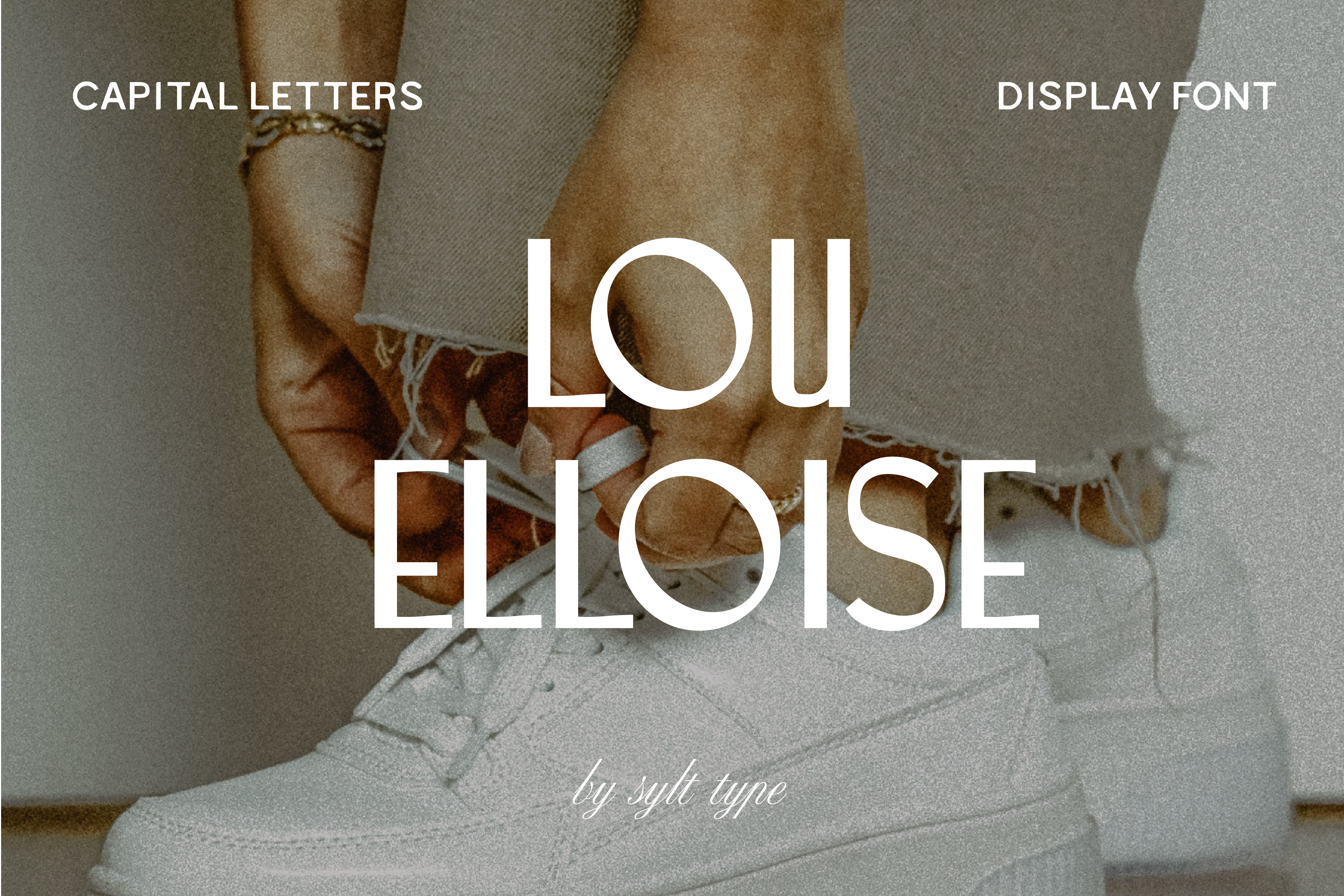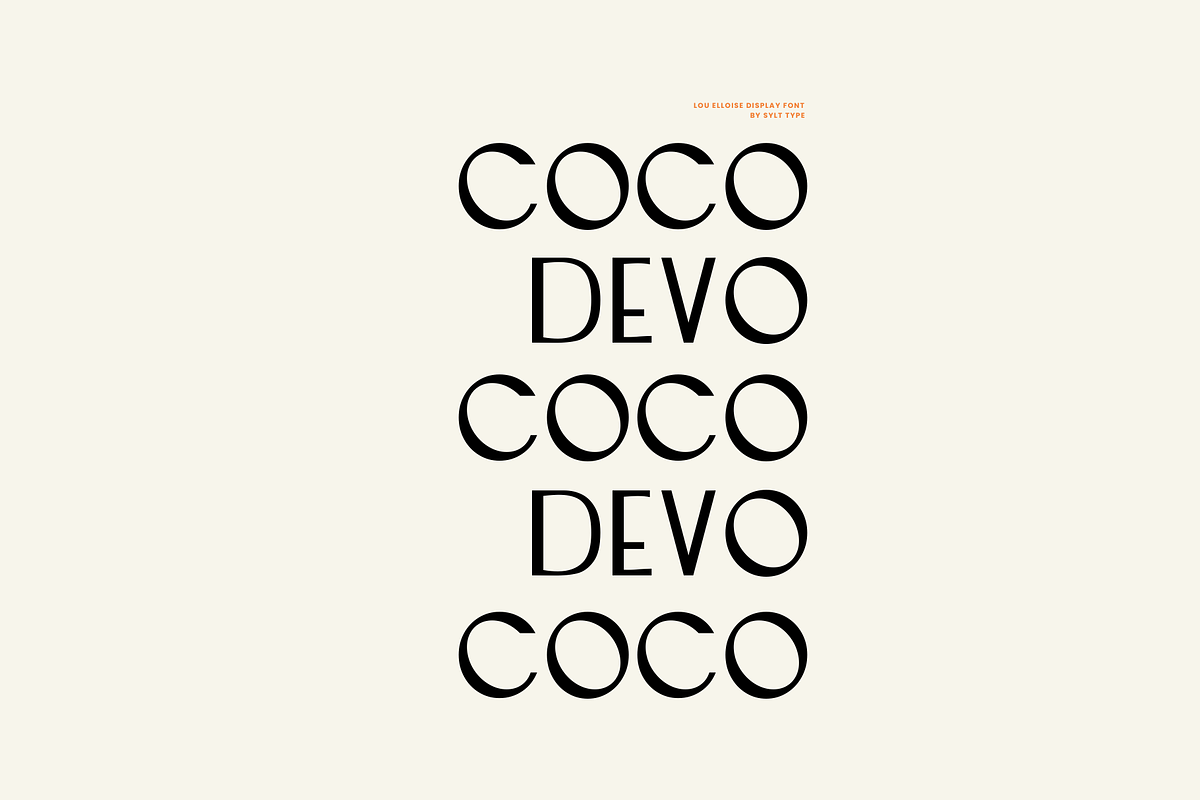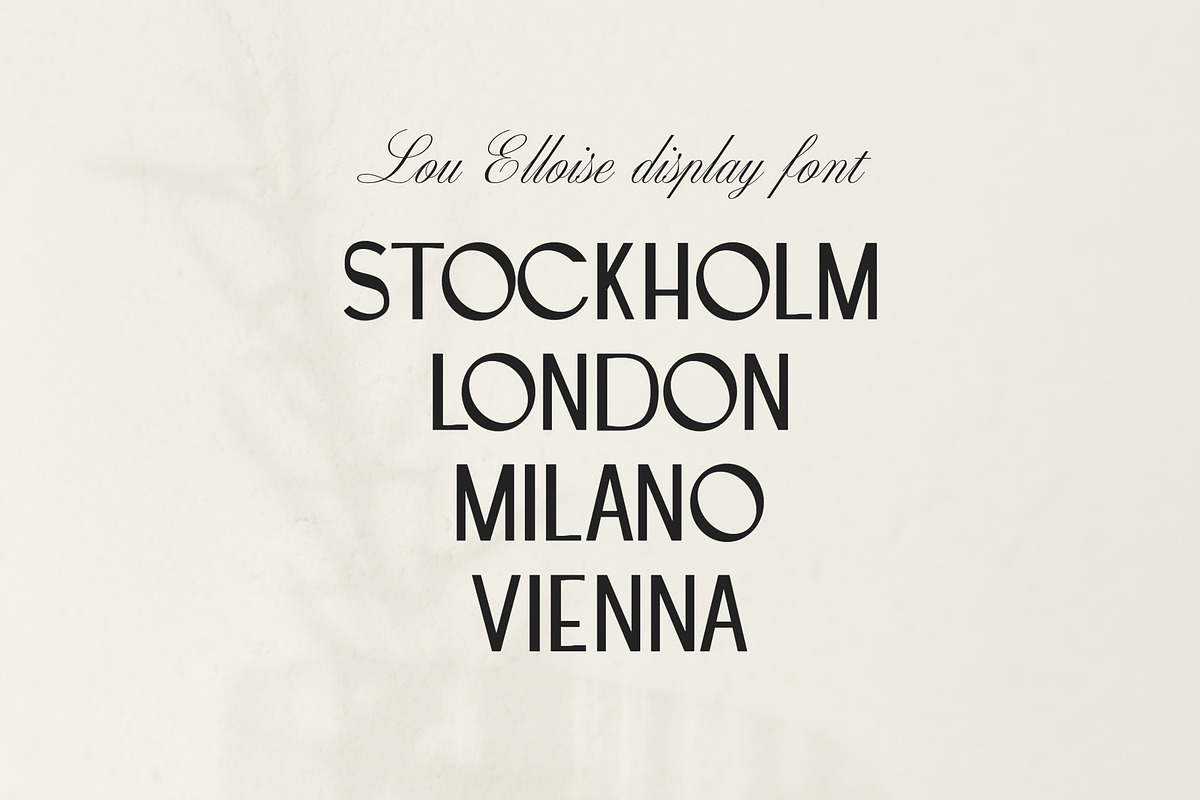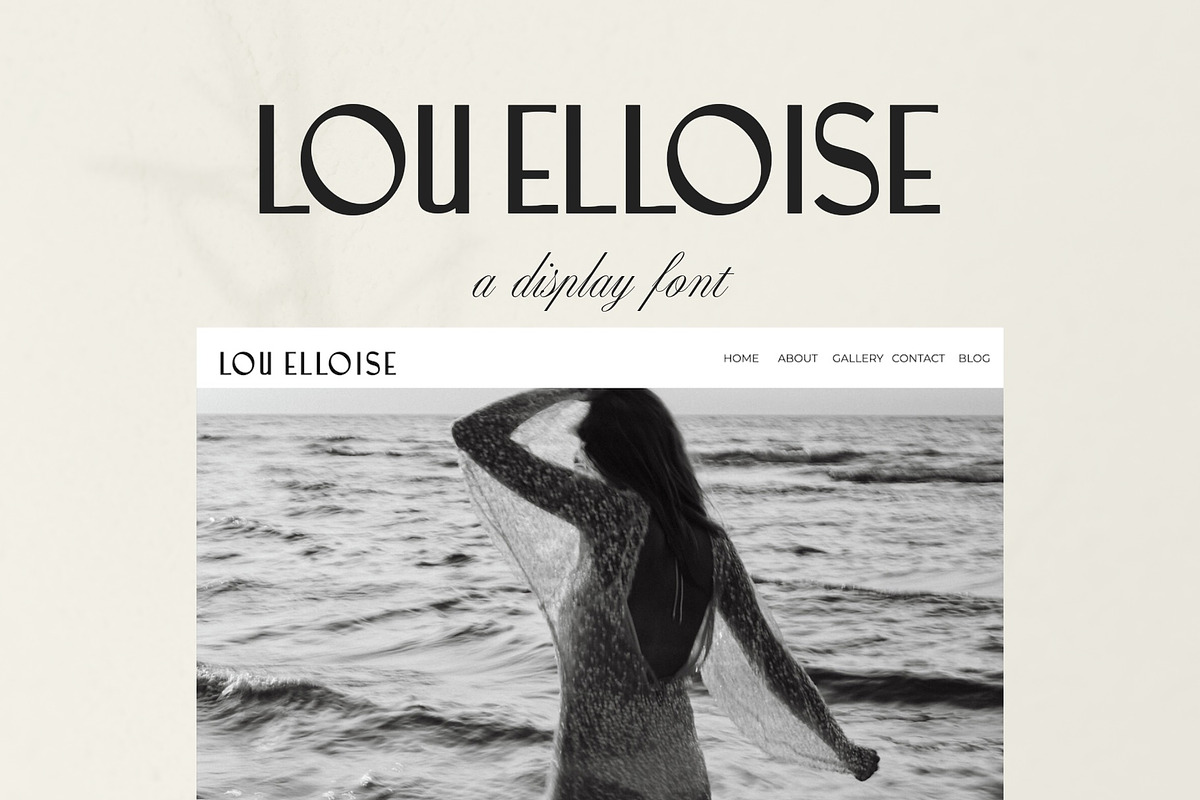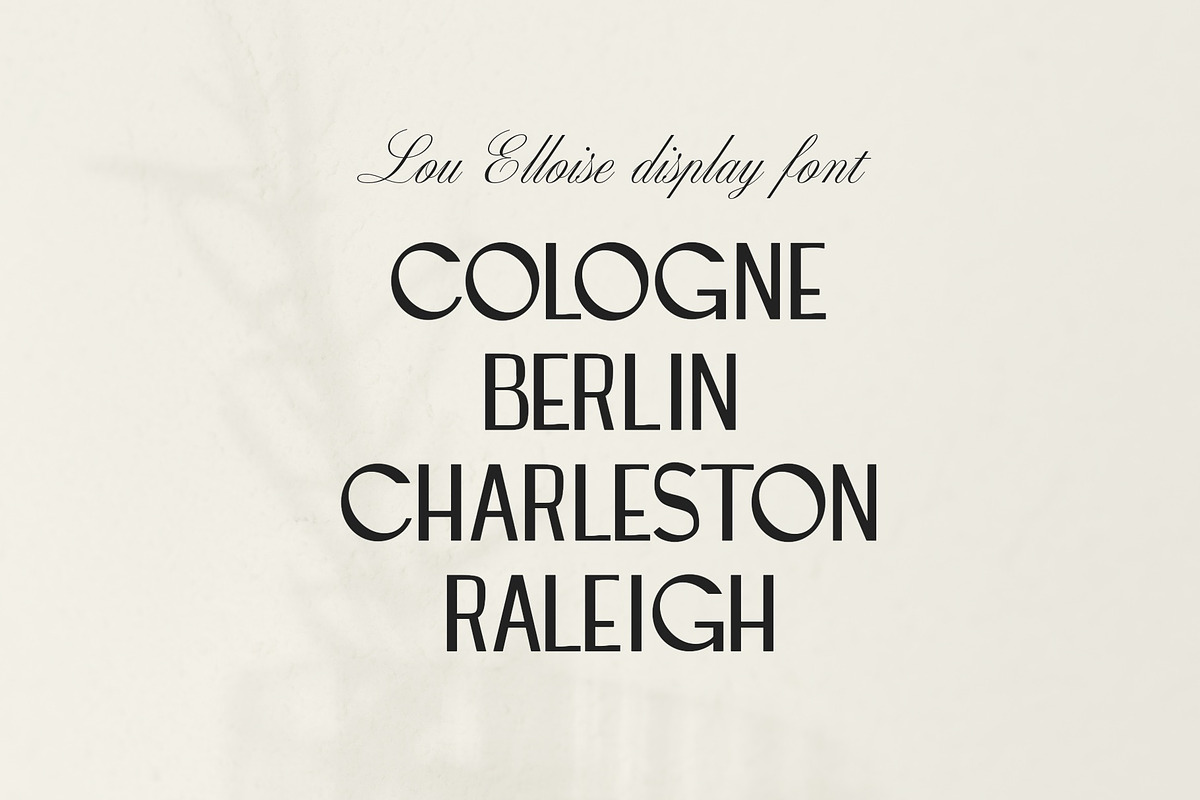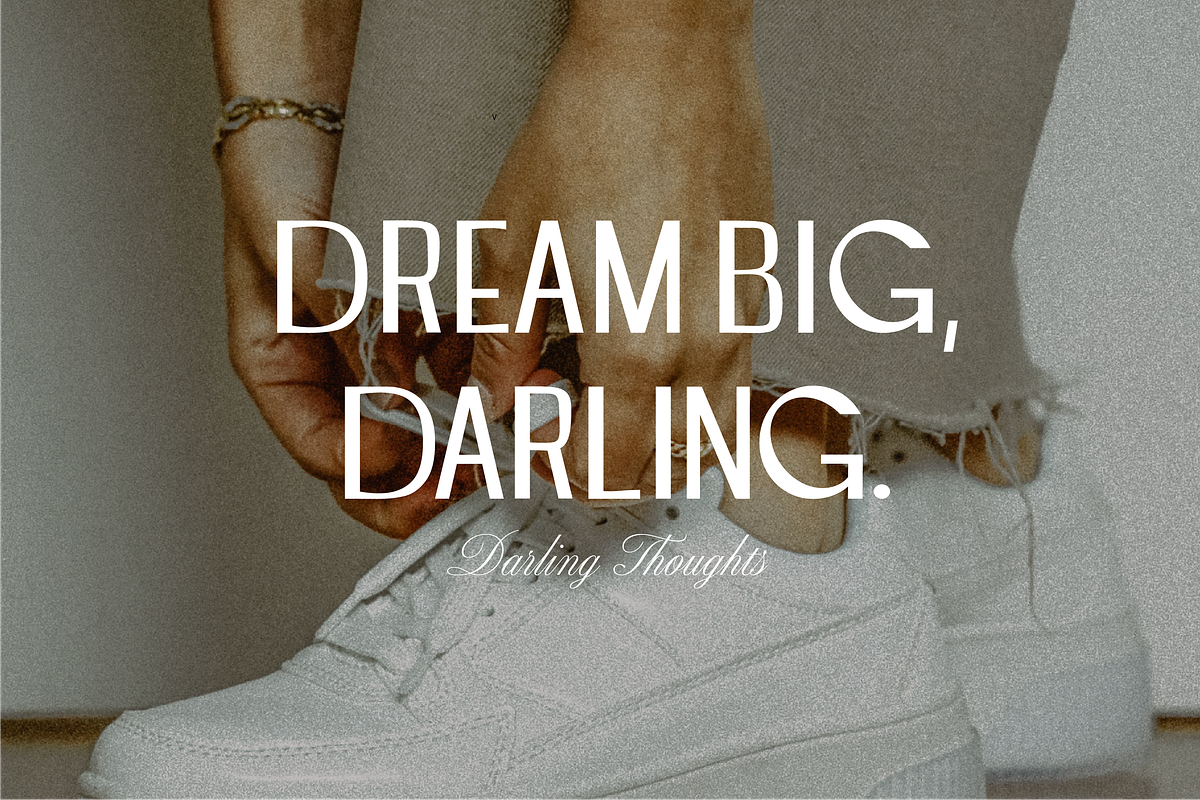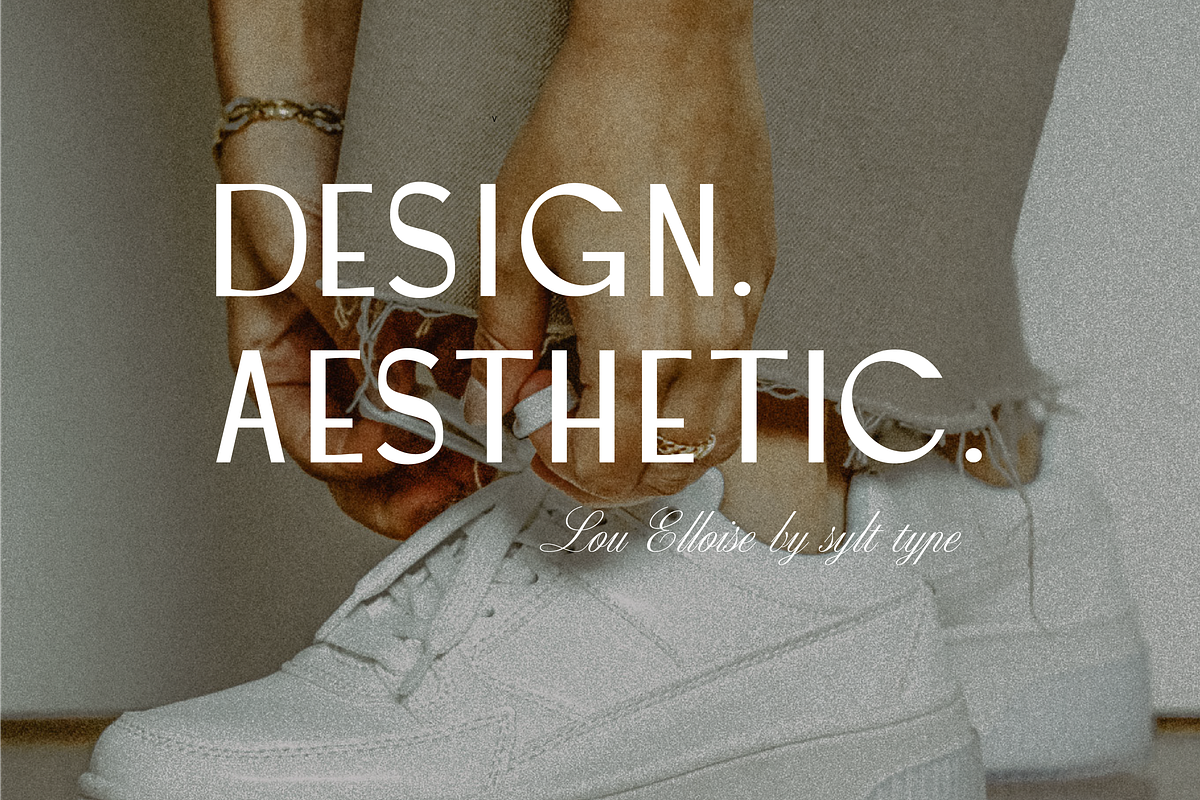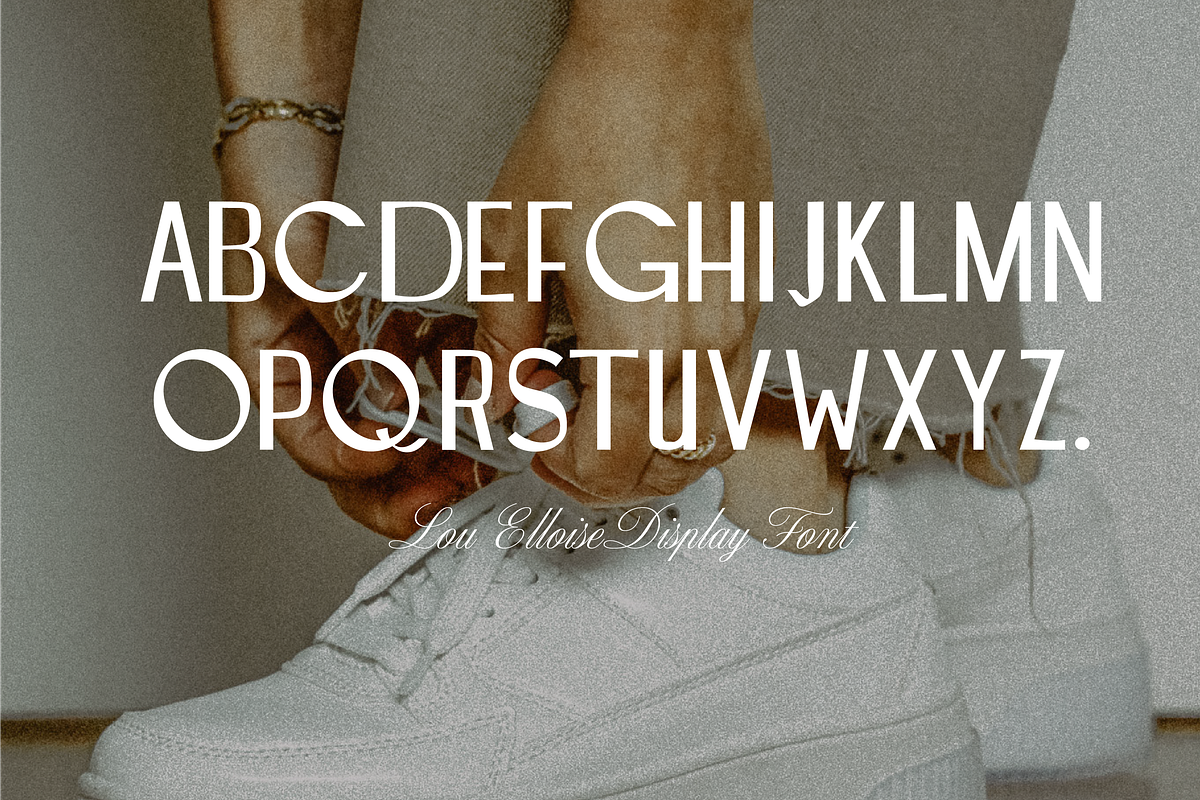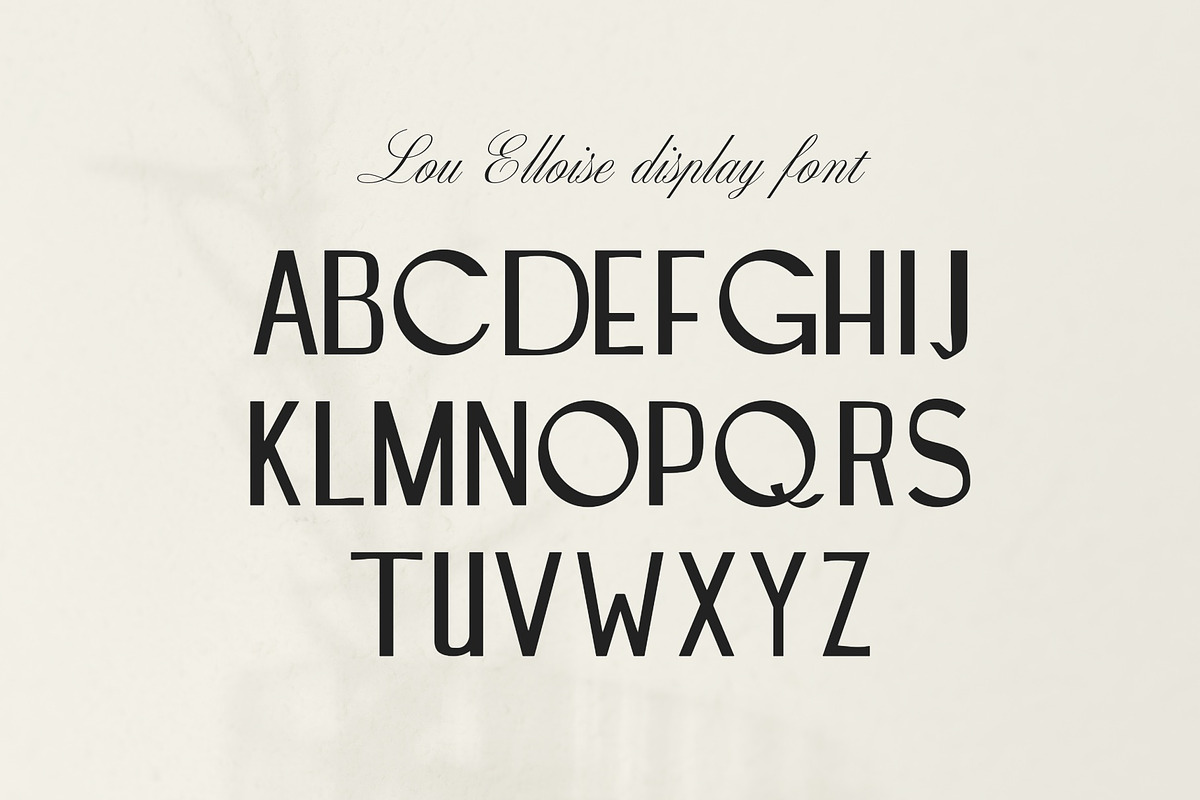
LOU ELLOISE Display Font
Lou Elloise is an all-caps, character-packed display font. Great for logos and product designs. Capital letters & limited punctuation (period, comma, hyphen, quote, apostrophe/single quote)